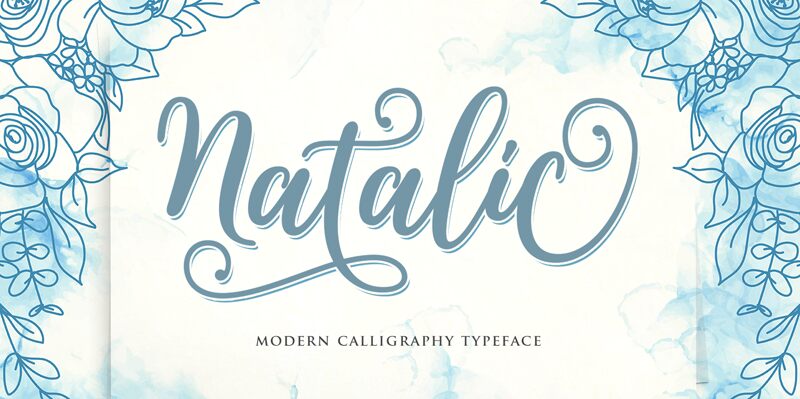
Natalic Script, designed by Rastype, is a captivating modern calligraphy font that adds elegance and sophistication to any project. With its semi-light weight and semi-condensed width, this font is perfect for creating stunning wedding invitations, luxurious branding materials, or stylish social media graphics. Its graceful curves and fluid strokes will bring a touch of class to fashion magazines, beauty blogs, or high-end product packaging. Natalic Script's versatility makes it suitable for all kinds of creative endeavors, from delicate stationery designs to trendy logo creations. Elevate your projects with the timeless charm of Natalic Script.
Natalic Script